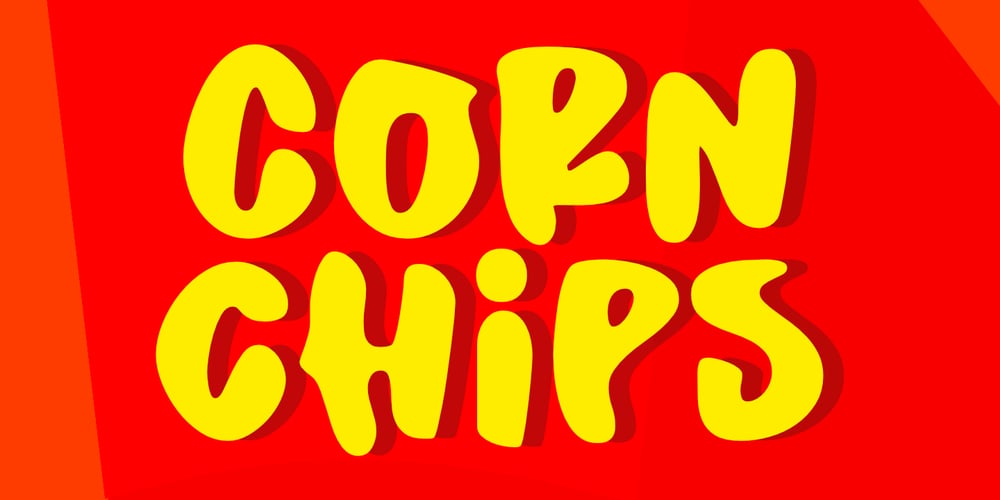
Corn Chips
Corn Chips font
Corn Chips Font Family was designed by Aldy Sidik and published by Olivetype. Corn Chips contains 1 styles and family package options. Corn Chips is a bold and whimsical display font that brings personality to any project! This playful typeface is perfect for catching the eye and making a memorable statement—whether for a funky logotype, eye-catching headlines, or vibrant product packaging.Corn Chips features :- Standard Latin- Numbers, symbols, and punctuations- Multilingual Support.- Fully accessible without additional design software- Simple Installations- Works on PC & MacThank You.